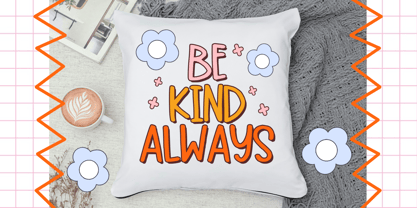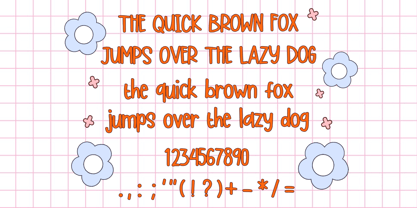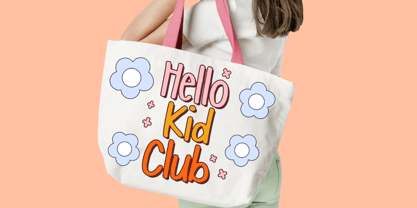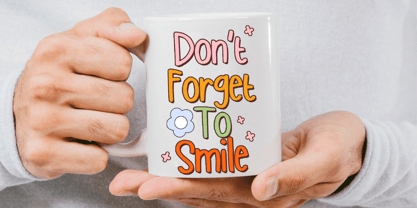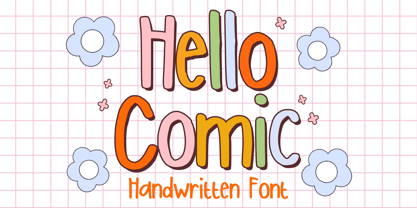
Hello Comic
por Mvmet
La familia tipográfica Hello Comic fue diseñada por Gabriel Valentinus y publicada por Mvmet. Hello Comic contiene 1 estilos.
Hello Comic is a playful, versatile and fun to use comic font. It will elevate a wide range of design projects to the highest level. You can use this font for many design ideas such as stickers, t-shirt designs, amazing logo designs, magazine or book covers, comics, cartoon drawings, daily typing, and many more. This font will add a super cool touch to your designs!
Diseñadores: Gabriel Valentinus
Editorial: Mvmet
Fundición: Mvmet